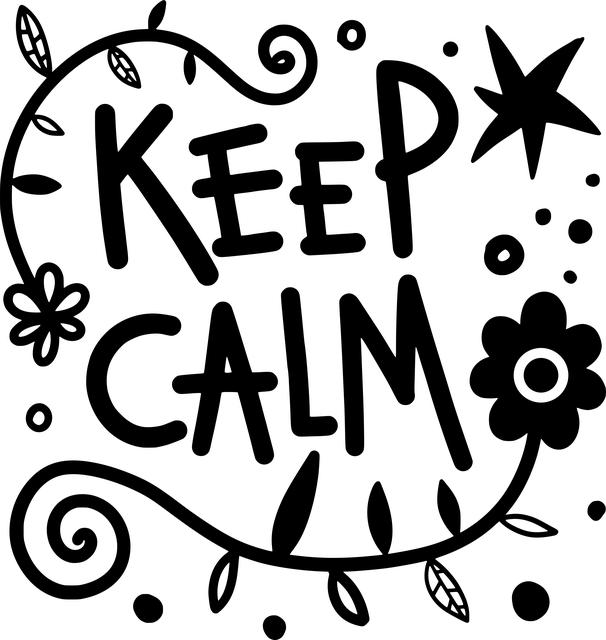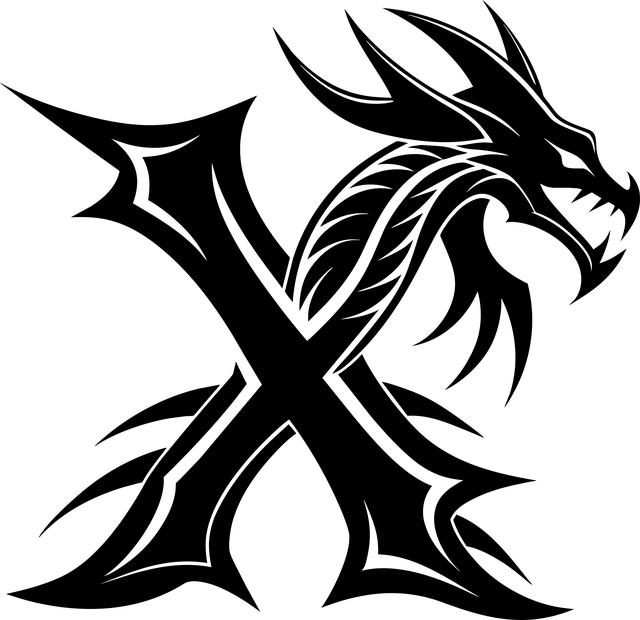
Fantasy Unleashed: Using Canva Fantasy Fonts in Your Designs
Are you tired of using the same old boring fonts in your designs? Do you want to add a touch of magic and whimsy to your creations? Look no further than Canva’s Fantasy Fonts! These enchanting and fantastical fonts are sure to take your designs to the next level. In this article, we will explore the world of Canva Fantasy Fonts and show you how to unleash their full potential in your projects. Get ready to bring your imagination to life with these stunning and captivating fonts!
Exploring Canva Fantasy Fonts Collection
Discover a whimsical world of fonts with Canva’s Fantasy Fonts Collection! Dive into a realm of creativity and imagination as you explore a wide variety of enchanting typefaces perfect for adding a touch of magic to your design projects. With unique and fantastical options at your fingertips, you can bring your wildest design dreams to life.
Whether you’re working on a fairytale-inspired invitation, a mystical poster, or a fantastical social media graphic, the Fantasy Fonts Collection has everything you need to make your designs stand out. From elegant script fonts to bold and playful styles, each font in this collection is carefully crafted to add a sprinkle of charm and wonder to your creations. So go ahead, unleash your creativity and let these magical fonts transport your audience to a world full of enchantment and imagination!
Have you ever felt like your designs are missing that special spark to make them truly stand out? can take them from ordinary to extraordinary. By incorporating unique elements and unexpected details, you can create a sense of wonder and whimsy that captivates your audience.
One way to infuse magic into your designs is to play with unexpected color combinations. Bold and vibrant hues can add a sense of energy and excitement, while softer pastel tones can create a dreamy and ethereal feel. Experiment with different color palettes to see what resonates with your vision. Additionally, incorporating elements like shimmering metallics or sparkling glitter can add a touch of glamour and enchantment to your designs. Let your imagination run wild and don’t be afraid to take risks – after all, magic happens when you step outside of your comfort zone.
Choosing the Perfect Fantasy Font for Your Project
When it comes to , there are a few key factors to consider. Firstly, think about the theme and tone of your project. Are you going for a whimsical, fairytale vibe? Or perhaps a darker, more mysterious feel? Selecting a font that complements these elements will help tie your overall design together seamlessly.
Next, consider the readability of the font. While it’s important to choose a font that reflects the fantasy genre, it’s equally crucial that your text remains clear and easy to read. Opt for fonts with good legibility and spacing to ensure that your message gets across effectively. Additionally, don’t be afraid to mix and match fonts to add visual interest to your project. **Experimenting with different font styles and sizes can help create a dynamic and engaging design** that captures your audience’s attention.
Tips for Pairing Fantasy Fonts with Other Typography
When pairing fantasy fonts with other typography, it’s important to keep the overall design cohesive and visually appealing. One tip is to choose a fantasy font that complements the main body font. For example, if your main body font is a clean and modern sans-serif, consider pairing it with a whimsical and ornate fantasy font to create a striking contrast. This can help draw attention to important text elements while adding a touch of magic to your design.
Another helpful tip is to pay attention to font weight and size when pairing fantasy fonts with other typography. Mixing fonts of similar weights can create a harmonious balance, while contrasting weights can add visual interest. Additionally, consider adjusting the size of the fantasy font to create hierarchy within your design. Use bold or italic styles to differentiate between headings and body text, ensuring that each font serves a specific purpose in the overall layout. By carefully selecting and combining fantasy fonts with other typography, you can create stunning and unique designs that captivate your audience.
Utilizing Fantasy Fonts to Create Enchanting Designs
Have you ever wanted to add a touch of magic to your designs? Look no further than utilizing fantasy fonts to create enchanting and mystical designs that are sure to captivate your audience. By incorporating these unique and whimsical fonts into your projects, you can transport your viewers to a world of fantasy and imagination.
With a wide range of fantasy fonts available, the possibilities are endless when it comes to creating captivating designs. Whether you’re working on a fairy tale book cover, a fantasy-themed poster, or a whimsical social media graphic, these fonts can breathe life into your projects like never before. From elegant script fonts to bold and dramatic typefaces, there’s a fantasy font out there to suit every style and aesthetic. Let your creativity run wild and explore the endless possibilities of using fantasy fonts to create truly enchanting designs.
The Conclusion
Incorporating Canva Fantasy Fonts into your designs can unleash a world of creativity and imagination, adding an enchanting touch to your projects.